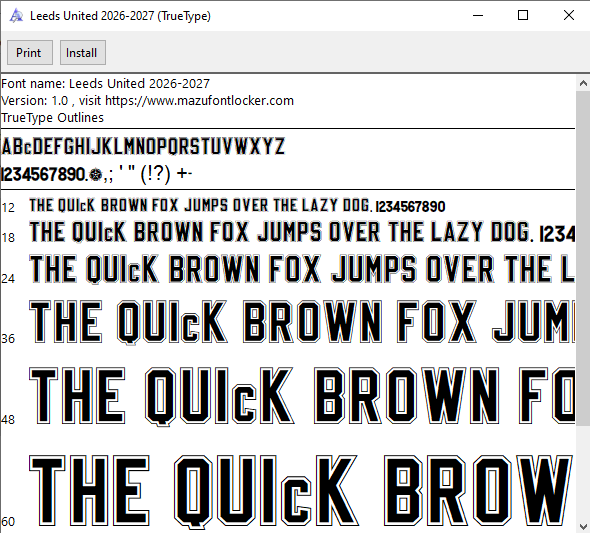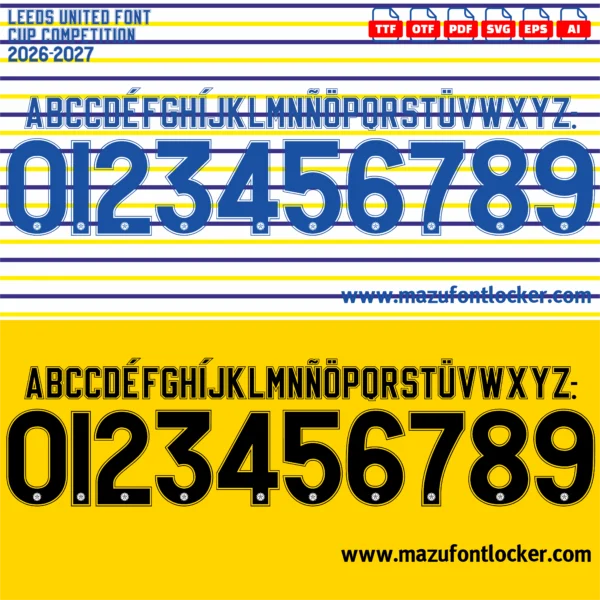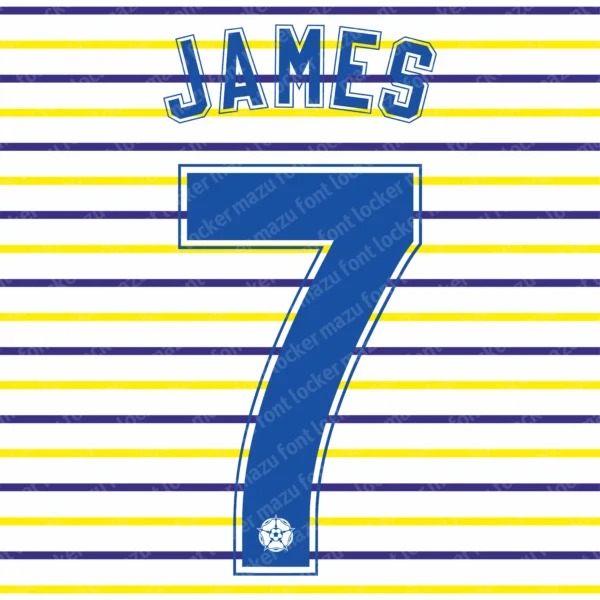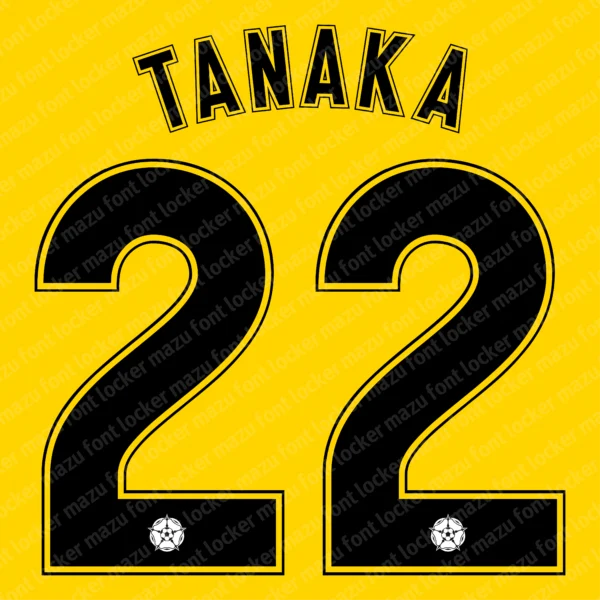
This font captures the razor-sharp, thunderous lettering that embodies Leeds United’s proud club identity, rich English football heritage, iconic white-and-blue tradition, and unstoppable fighting spirit — delivering premium quality and explosive energy for jersey mockups, football graphics, sports branding, and fan creations.
Leeds United 2026-2027 Font Vector – Iconic Whites Heritage Typeface
The Leeds United 2026-2027 Font Vector is a premium typeface that accurately recreates the official match lettering worn by Leeds United during their 2026-2027 campaign. This high-quality vector font kit captures the bold, clean, and instantly recognizable typography that perfectly complements the club’s iconic white, blue and yellow identity.
Designed for professional designers, football enthusiasts, and passionate Leeds supporters, the Leeds United 2026-2027 Font Vector delivers exceptional authenticity for creating realistic jersey mockups, football merchandise, social media graphics, match posters, and custom fan artwork. Every character has been carefully recreated to match the powerful and precise visual style of one of England’s most historic and passionate football clubs.
Why Choose Leeds United 2026-2027 Font Vector
This font stands out thanks to its precise vector construction and authentic club-inspired styling. Every letter and numeral has been meticulously recreated to match the official shirt lettering used throughout the 2026-2027 season and associated pre-season campaigns. Whether you’re producing professional kit templates or creating eye-catching football content, the Leeds United 2026-2027 Font Vector delivers a genuine match-ready appearance inspired by the proud identity of the Yorkshire giants.
The lettering featured in the Leeds United 2026-2027 Font Vector combines clean geometric lines with powerful modern proportions. The result is a premium and highly readable typeface that reflects Leeds United’s fighting spirit, attacking football, resilience, and proud “Marching On Together” heritage.
• Complete uppercase A–Z alphabet and numbers 0–9 in authentic Leeds United 2026-2027 style
• Special Leeds United badge glyph – Press the “:” (Colon) key to insert the club crest
• Recreate the distinctive look of Leeds United player names and squad numbers for creative projects
Leeds United 2026-2027 Season
The 2026-2027 season marks another exciting chapter for Leeds United as the club continues its pursuit of excellence and global presence. Competing in high-profile matches while preparing for domestic and potential European campaigns, Leeds United will once again showcase its iconic white kit on the international stage.
The Leeds United 2026-2027 Font Vector is an independently designed typeface package inspired by the official shirt lettering associated with the 2026-2027 season. It has been carefully recreated for football enthusiasts, graphic designers, collectors, and creators producing custom jersey concepts, football artwork, and fan-made projects. Please note that this is a fan-made design resource and is not an official product of Leeds United Football Club, the Premier League, EFL, UEFA, or any associated organization.